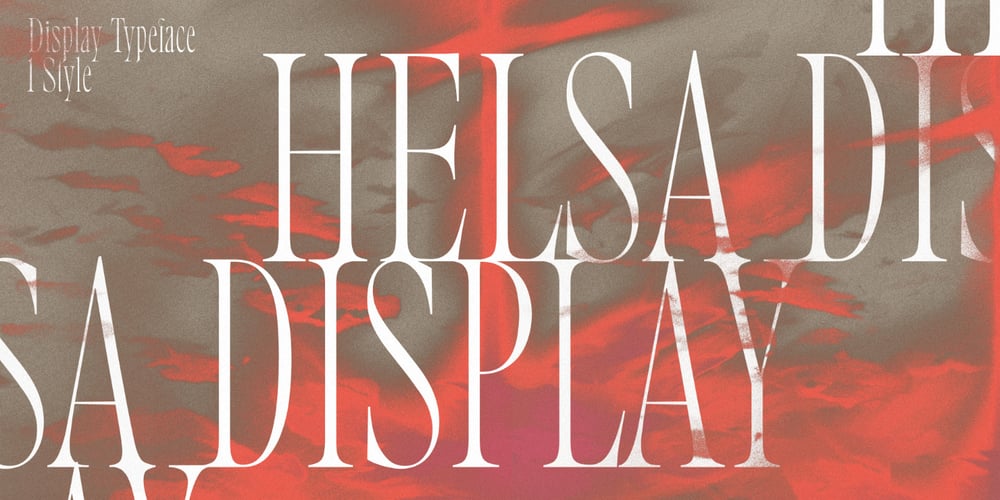
Helsa Display Font Family was designed by Nikolay Nedashkovsky and published by ParaType. Helsa Display contains 1 styles and family package options. Helsa is a slim and eccentric serif for headings and short texts. It’s a modern interpretation of the narrow Elseviers of the early 20th century. The letterforms are based on Dutch samples, and in the details there are references to both American type catalogs and letters from the foundries of Wolf and Herbeck.Due to the compact proportions of characters and the high contrast of strokes, Helsa doesn’t take up much space in the line and allows you to increase the type size freely, drawing the viewer’s attention to the text.The typeface is suitable for branding museums and exhibitions, alternative music bands, independent clothing and perfume brands, and for any topic related to design or history.Helsa’s character set has more than 1600 characters. It supports hundreds of languages, including extended Cyrillic, Greek, and Vietnamese, as well as many OpenType features: fractions, ligatures, old style and tabular numerals, titular letter alternates, and more. There are variants of dashes and other punctuation marks specifically for uppercase typing.In addition to letters, the typeface contains arrows, numbers in circles (in fact, in ovals), symbols of various types of plastic, card suits and much more.Helsa typeface was made at Paratype in 2020-2022.